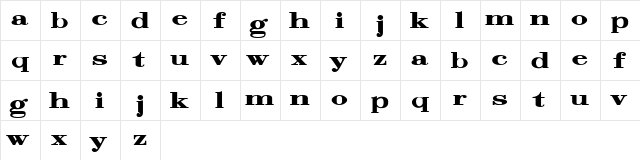
Hoodie Regular
Design Context for Hoodie Typeface
Hoodie offers clean, dependable letterforms without strong stylistic allegiance, making it a practical choice for designers who need flexibility.
Pro Tip: Use Hoodie in both headline and body roles to test its range before committing to a single application.